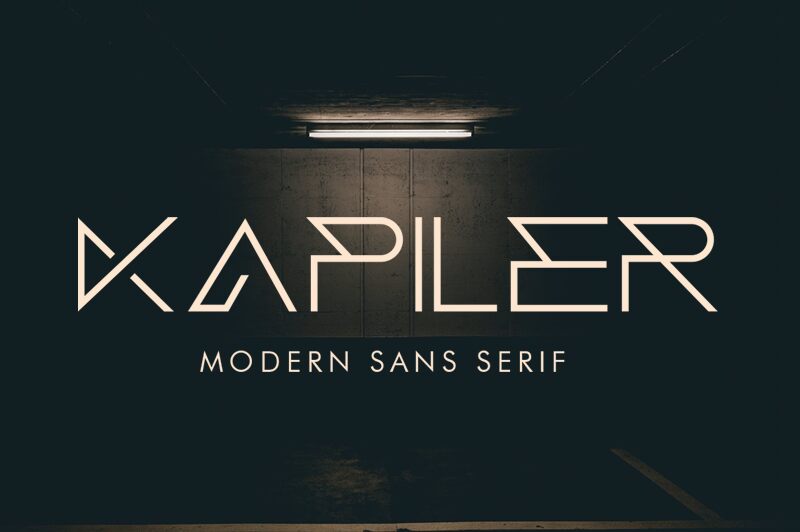
Kapiler, a captivating display font crafted by Vultype, exudes a bold, futuristic aesthetic. Its expanded, techno-inspired letters command attention, radiating a sense of modern dynamism. The sharp, angular forms and sleek, streamlined design evoke a palpable air of technological sophistication, making Kapiler a visually striking choice for a wide range of applications.
Kapiler's versatility shines through, lending itself seamlessly to digital interfaces, packaging, and branding initiatives that require a strong, impactful typographic presence. Its expanded structure and distinctive letterforms make it an excellent selection for titles, headlines, and attention-grabbing design elements, effortlessly capturing the viewer's gaze.